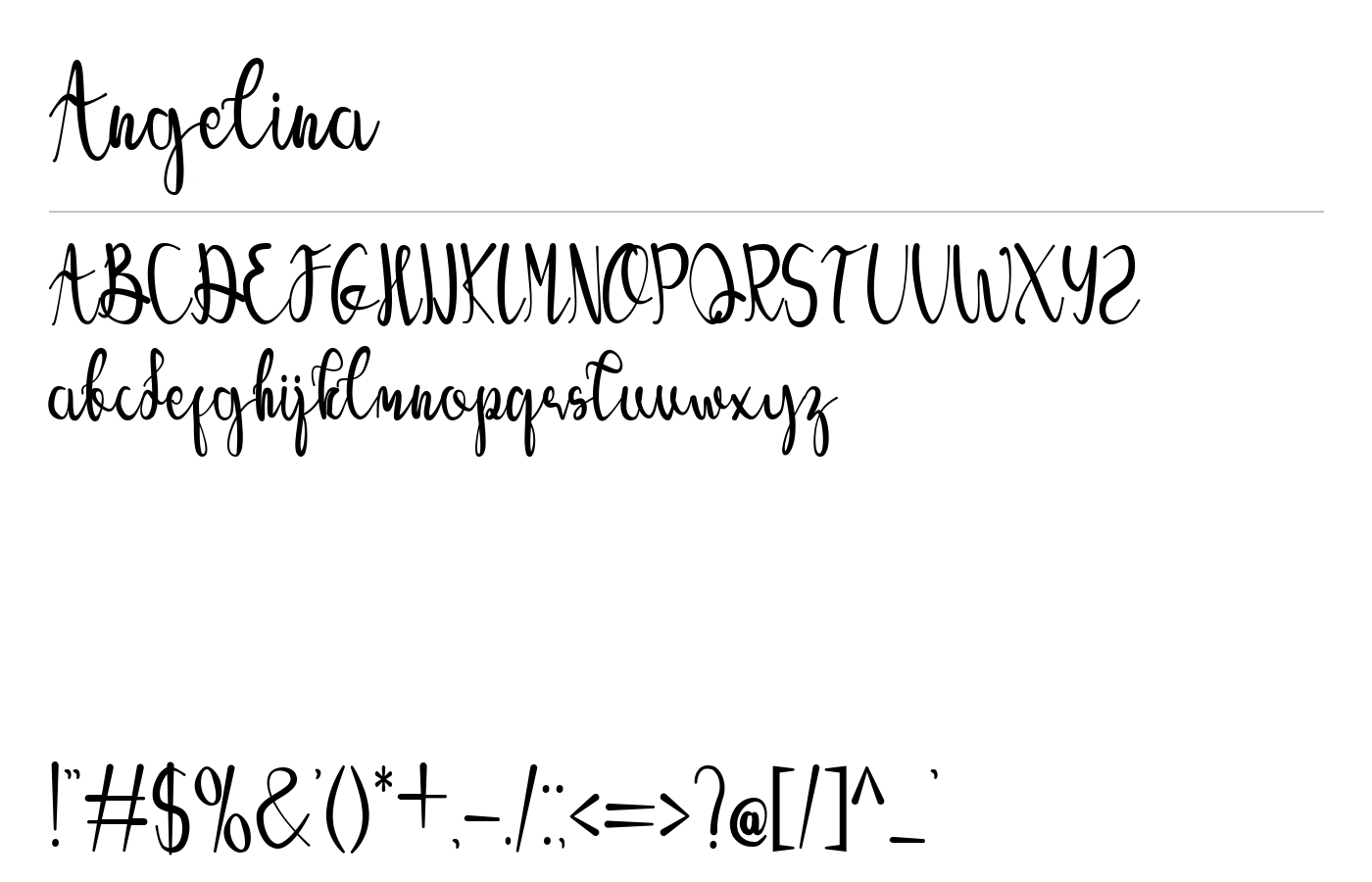
Angelina is a delicate, handwritten script font with a casual and elegant feel, featuring slender strokes and a lively, playful flow. Its tall, narrow letterforms with whimsical loops make it perfect for personal branding, invitations, and creative projects that want to convey a friendly yet refined personality. This font works well in headlines or decorative text where a touch of charm and sophistication is desired.
Angelina Font
About Angelina Font
| Font family | Angelina Font |
| Designer | Muksal Creative |